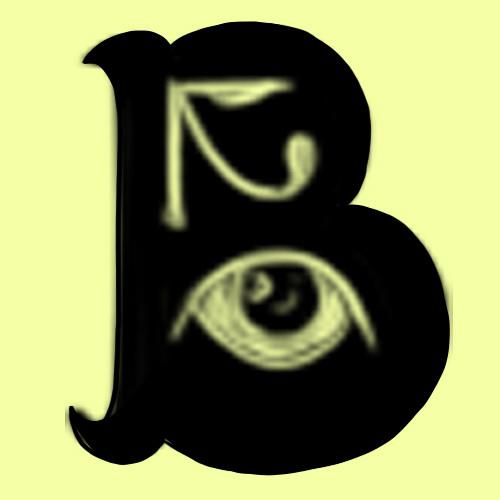
Uglyeah Font Description
Uglyeah is a bold serif font. It features galaxy, scifi vintage themed characters that will look amazing in your crafting projects. Get inspired by its authentic nuance and use it to create beautiful posters, artwork, social media posts, and outstanding logos.